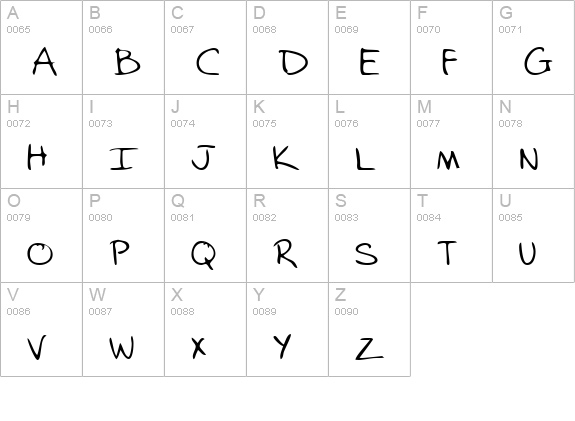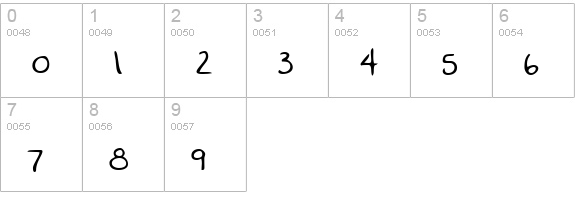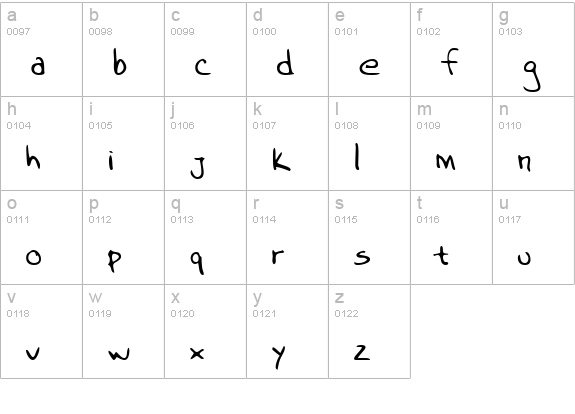
AstersHand Regular Font Details
AstersHand Regular is the standard, neutral variant in the AstersHand typeface family \xE2\x80\x94 well suited to general body text, paragraphs, and standard typographic work.